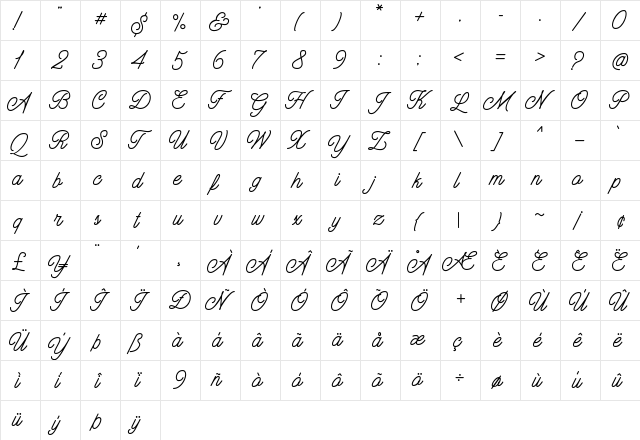
Hatterline Regular
Design Context for Hatterline Typeface
Hatterline is a composed and adaptable typeface that performs quietly and consistently across a wide range of design contexts.
Pro Tip: Pair Hatterline with a font of contrasting weight or personality to build a more expressive typographic hierarchy.